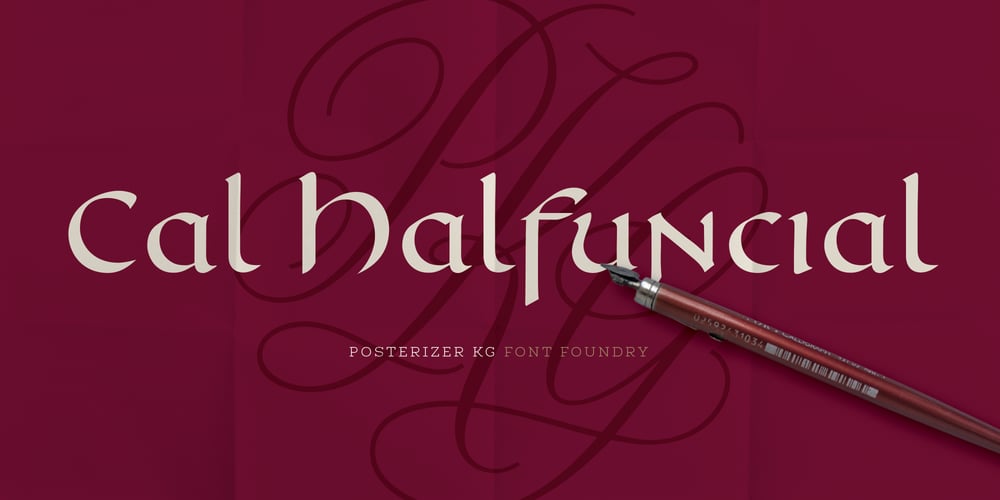
Cal Halfuncial Font Family was designed by Lazar Dimitrijević and published by Posterizer KG. Cal Halfuncial contains 1 styles and family package options. Cal Halfuncial is one more PKG calligraphic font based on traditional manuscript – Roman Half-uncial. All graphemes are first manually lettered with wide iron nib on paper and then stylized and upgraded for digital use. Half-uncial was emerged from Uncial and the New Roman Cursive. One of the most important characteristics of half-uncial is that it is the first (transitional) minuscule. After Uncial it was the most widespread script in the period between the 5th and 7th centuries in Europe.Cal Halfuncial typeface is very useful for calligraphic sketches creating, mimesis of ancient manuscripts, and many other graphic solutions. Contains multilingual Latin.